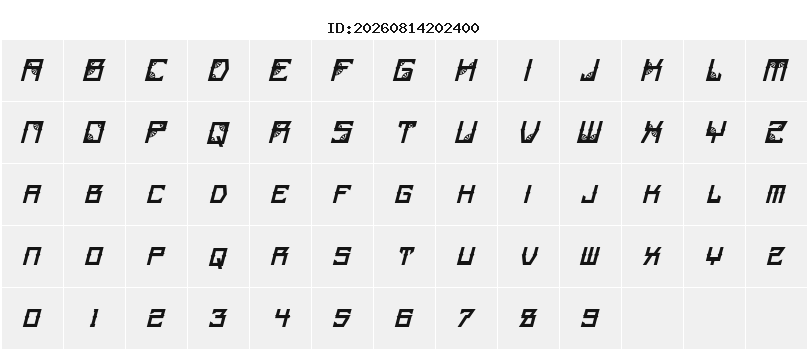
• Font Name: Steamwheel
• Full Font Name: Steamwheel Italic
• Version: Version 1.00 February 16, 2016, initial release
• Designer: Neale Davidson
• Manufacturer: Pixel Sagas
About Steamwheel.otf
Steamwheel.otf is a modern, elegant sans-serif font designed for ultimate readability and visual harmony. Perfect for branding, headlines, web design, and print materials.